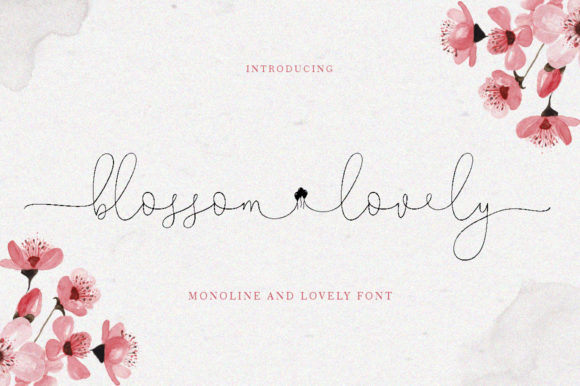
Introducing Blossom Lovely Font: Elevate Your Designs with Elegance
Are you a designer or crafter looking for a unique and elegant handwritten font to add a personal touch to your creations? Look no further than Blossom Lovely Font! This stunning font is perfect for a variety of designs, including wedding invitations, thank you cards, weddings, greeting cards, logos, and more.
What Makes Blossom Lovely Font Special?
Blossom Lovely Font is a one-of-a-kind, handwritten font that exudes elegance and sophistication. Its unique and flowing script makes it perfect for designs that require a personal and whimsical touch. Whether you’re creating wedding stationery, branding materials, or social media graphics, Blossom Lovely Font is sure to impress.
Key Features of Blossom Lovely Font
- Elegant Handwritten Script: The font features a beautiful, flowing script that is perfect for creating elegant and sophisticated designs.
- Versatile: Blossom Lovely Font can be used for a variety of designs, including wedding invitations, thank you cards, weddings, greeting cards, logos, and more.
Blossom Lovely Font is perfect for designers and crafters who want to add a personal touch to their creations. Whether you’re creating custom wedding stationery, designing logos for clients, or crafting social media graphics, this font is sure to impress.
Ideas for Using Blossom Lovely Font
- Wedding Invitations: Use Blossom Lovely Font to create beautiful and elegant wedding invitations that set the tone for the big day.
- Thank You Cards: Add a personal touch to your thank you cards with Blossom Lovely Font.
- Logos: Use Blossom Lovely Font to create custom logos for clients or your own business.
- Greeting Cards: Create beautiful and elegant greeting cards for special occasions, such as birthdays, anniversaries, and holidays.
- Social Media Graphics: Use Blossom Lovely Font to create stunning social media graphics that stand out from the crowd.
Tips for Getting the Most Out of Blossom Lovely Font
- Experiment with Different Sizes: Try out different font sizes to see how Blossom Lovely Font looks in different contexts.
- Pair with Other Fonts: Experiment with pairing Blossom Lovely Font with other fonts to create unique and interesting combinations.
Blossom Lovely Font is a unique and elegant handwritten font that is perfect for designers and crafters looking to add a personal touch to their creations. With its PUA encoding, elegant script, and versatility, this font is sure to become a favorite in your design arsenal. So why wait? Download Blossom Lovely Font today and start creating stunning designs that impress!